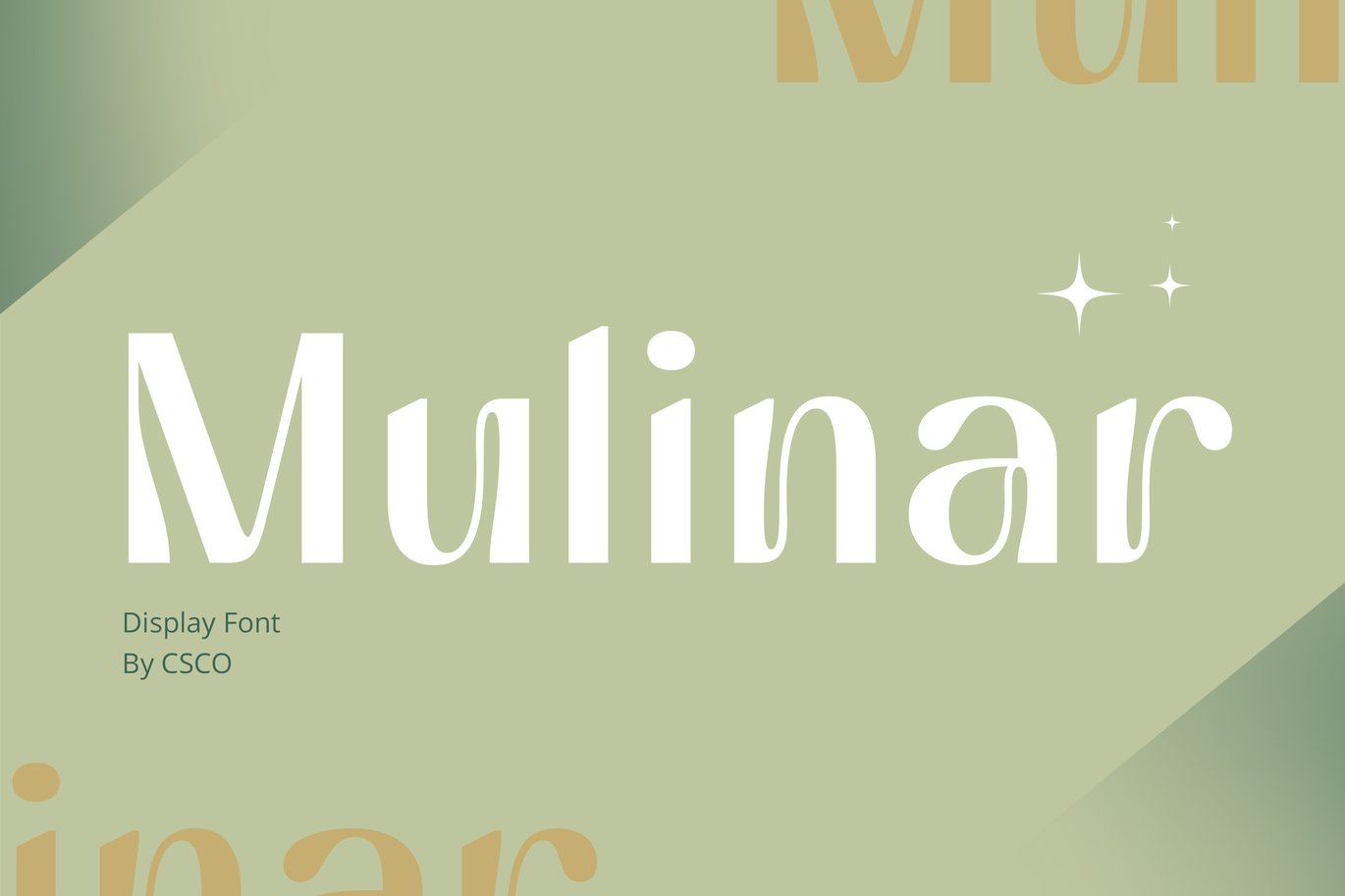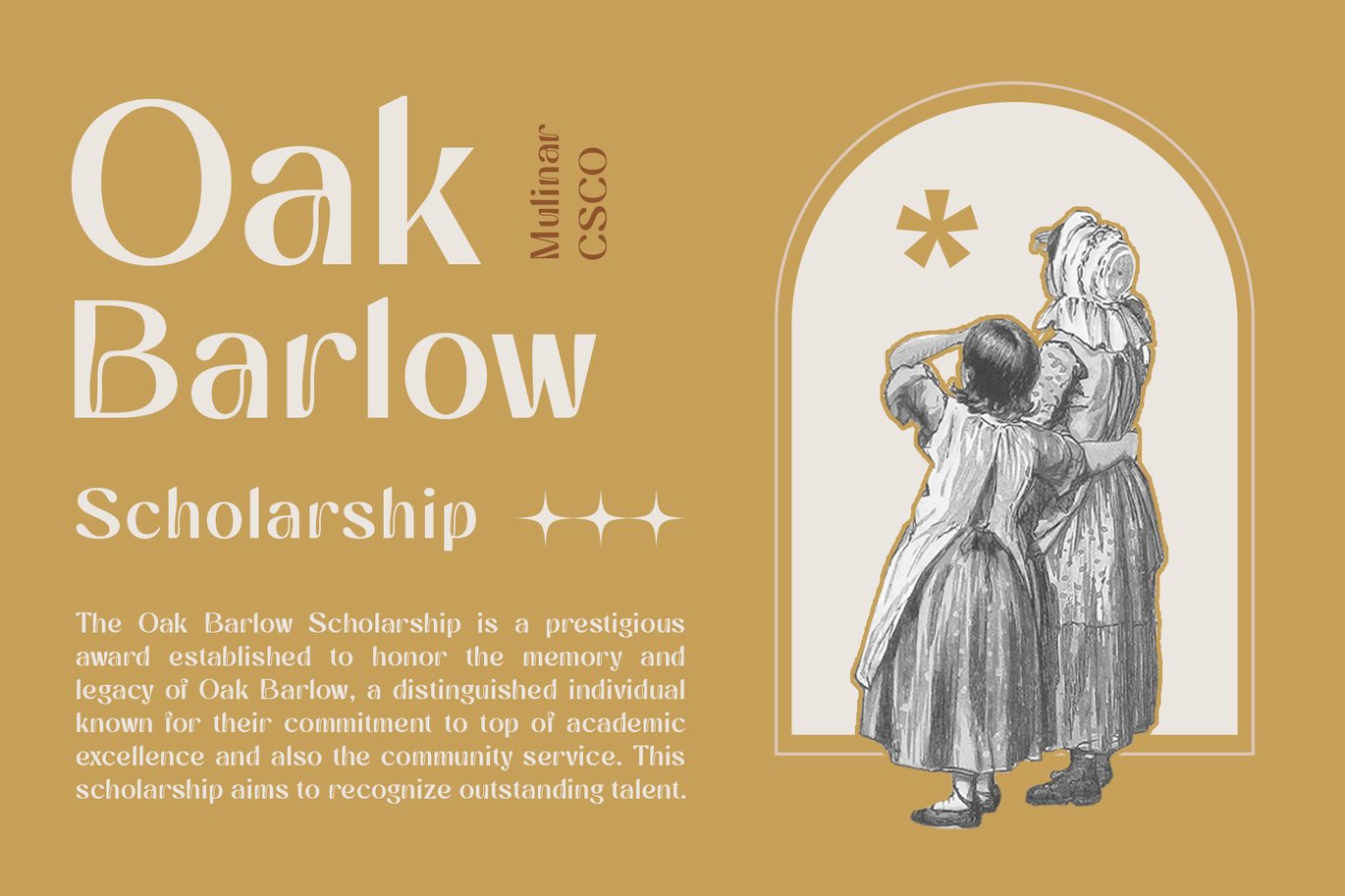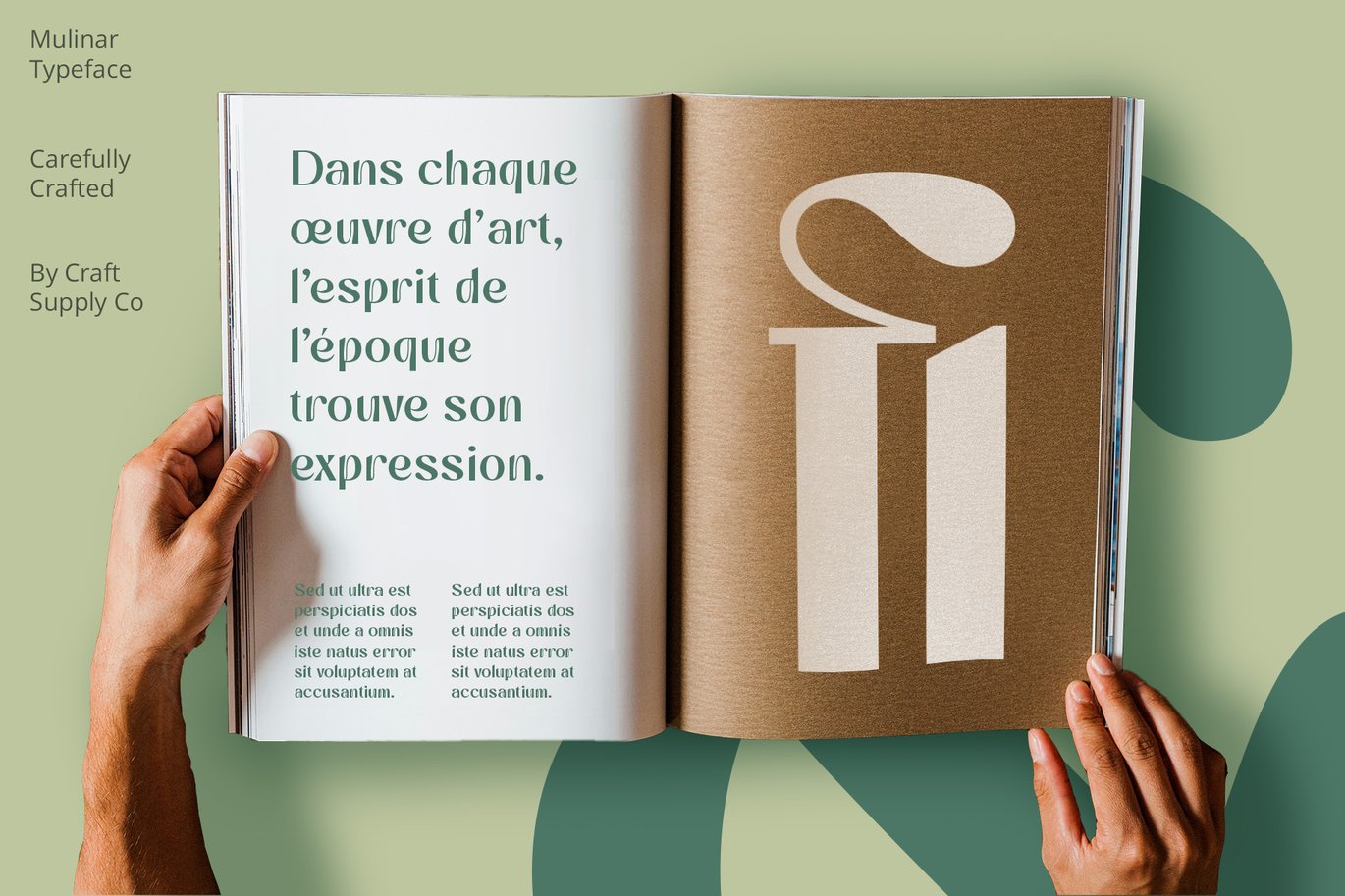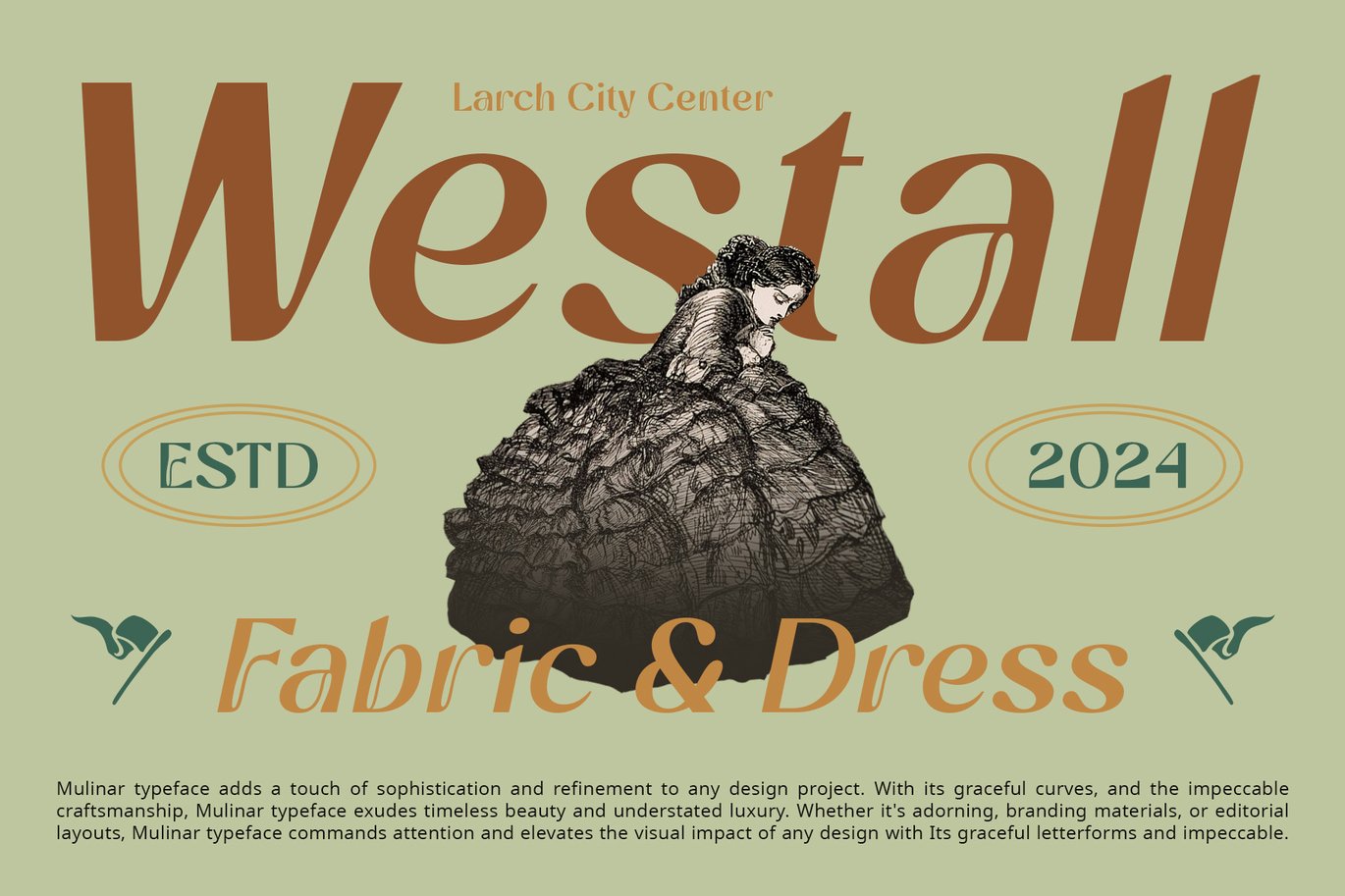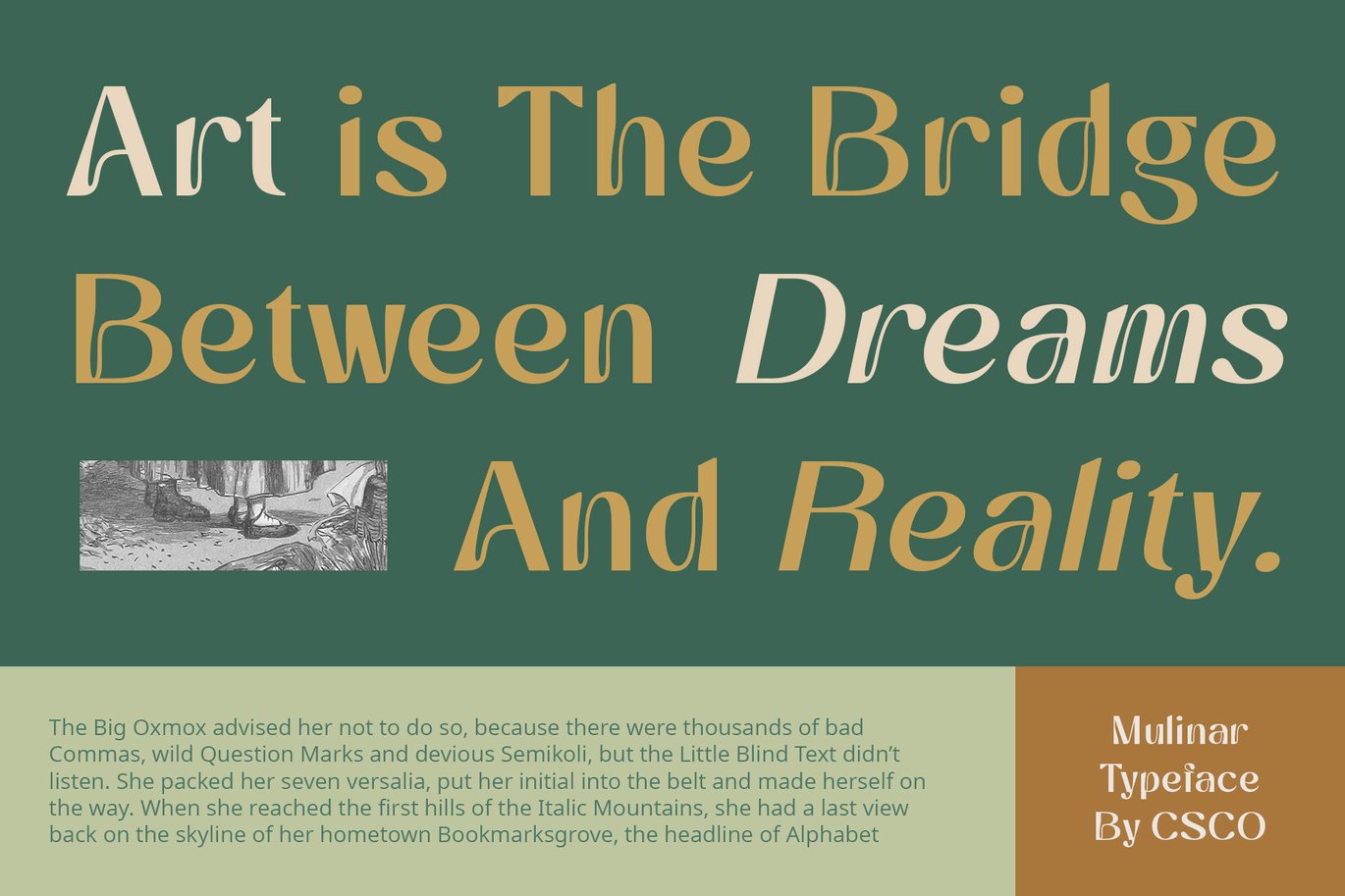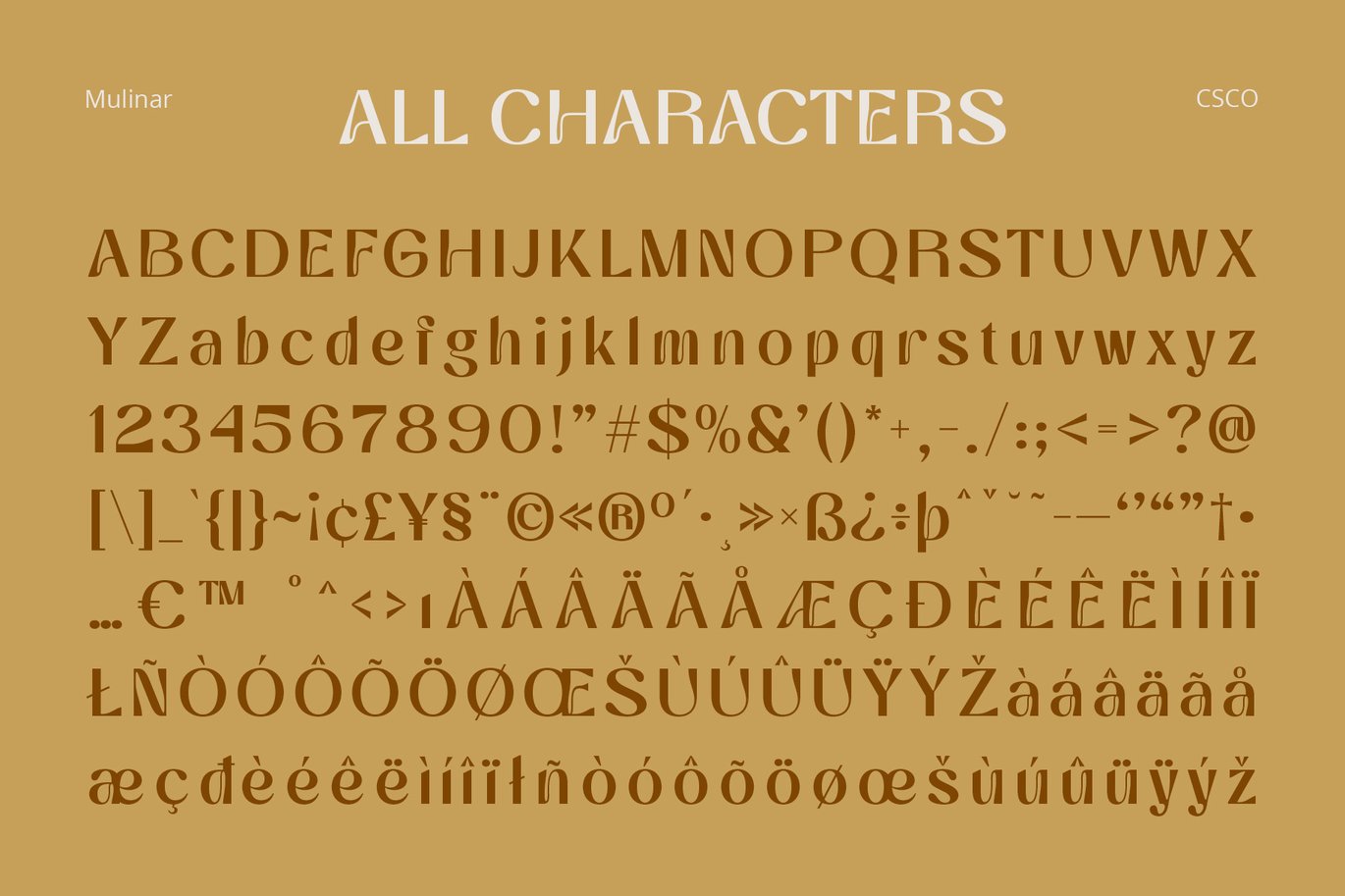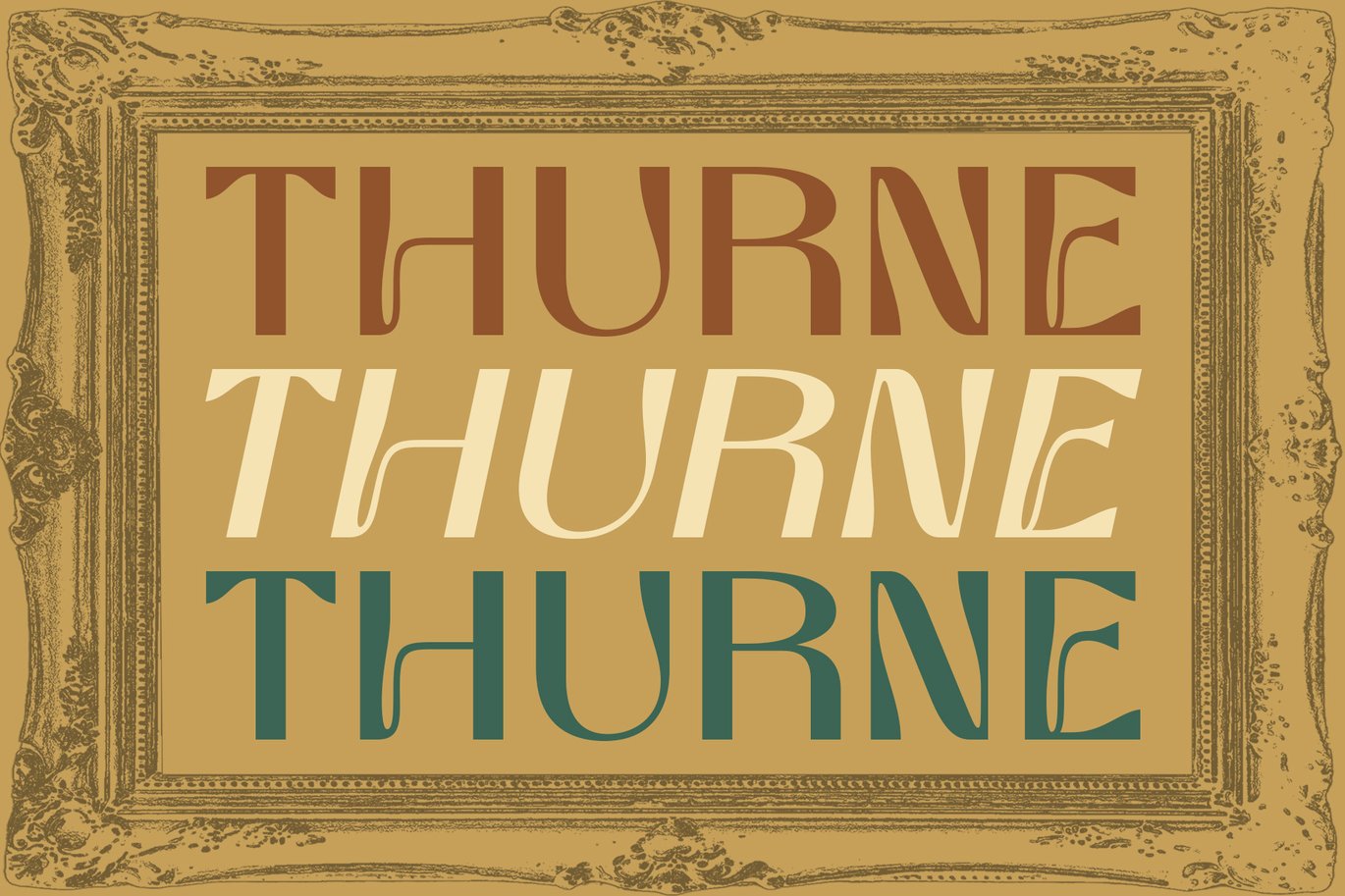
Mulinar – Art Nouveau Font
Mulinar – Art Nouveau Font: Elegance in Every Curve
Art Nouveau-style Sans Serif
Mulinar Font is an Art Nouveau-style sans-serif typeface that brings beauty and elegance to any design. With its graceful curves and refined details, it captures the essence of the Art Nouveau movement, making it a perfect choice for sophisticated and stylish projects.
Timeless Beauty and Elegance
Inspired by the intricate and organic forms of Art Nouveau, Mulinar Font features fluid lines and elegant shapes. Each letter is meticulously crafted to add a touch of timeless beauty to your designs, making it ideal for everything from invitations to branding.
Versatile and Stylish
Whether you’re creating luxurious branding, elegant editorial layouts, or artistic posters, Mulinar Font offers versatility with a stylish edge. Its Art Nouveau influences ensure that your designs stand out with a unique and captivating aesthetic.
Perfect for Various Applications
From high-end packaging to decorative headlines, Mulinar Font excels in a variety of design applications. Its combination of sans-serif functionality and Art Nouveau artistry makes it suitable for both display and text use, adding sophistication and charm to any project.
Elevate Your Designs
With Mulinar Font, elevate your designs to new levels of elegance and sophistication. Its Art Nouveau style and sans-serif simplicity create a harmonious balance, ensuring your projects are not only visually stunning but also timelessly elegant.